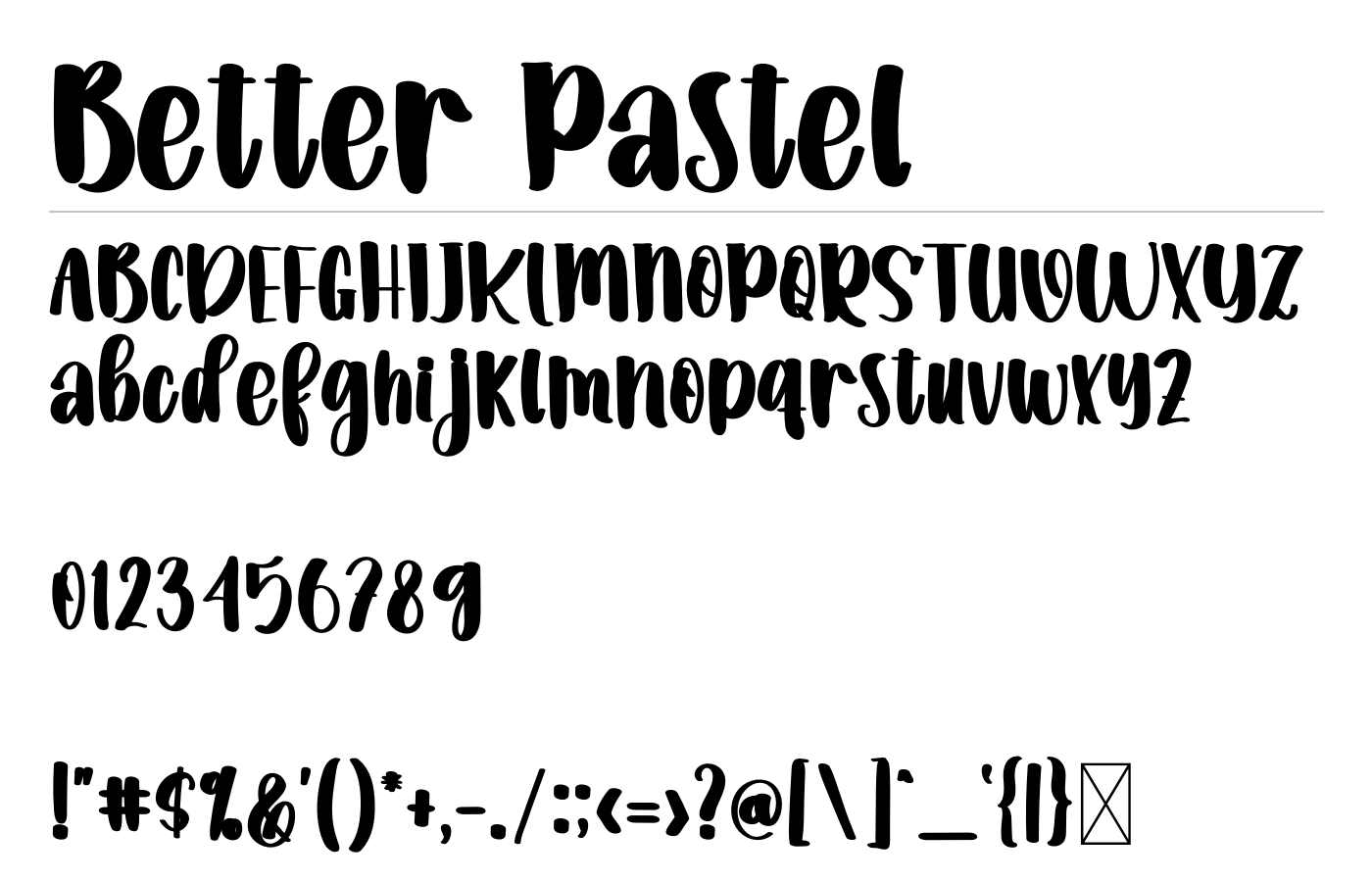
Better Pastel is a playful, bold script-style font with a warm and friendly feel. Its thick and slightly uneven strokes give it a handcrafted charm, making it perfect for creative, casual branding, invitations, and headlines that want to convey fun and approachability. This font works well in designs targeting a youthful or cheerful vibe, adding personality and energy to any project.
Better Pastel Font